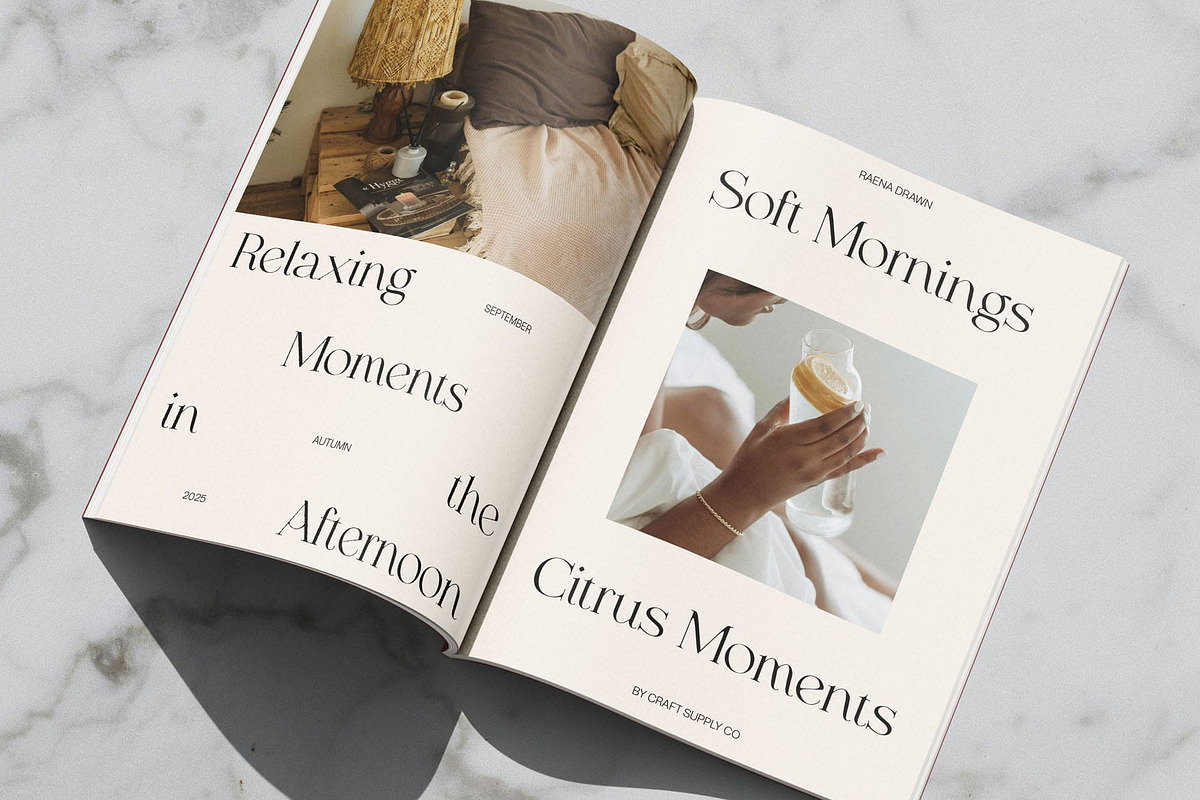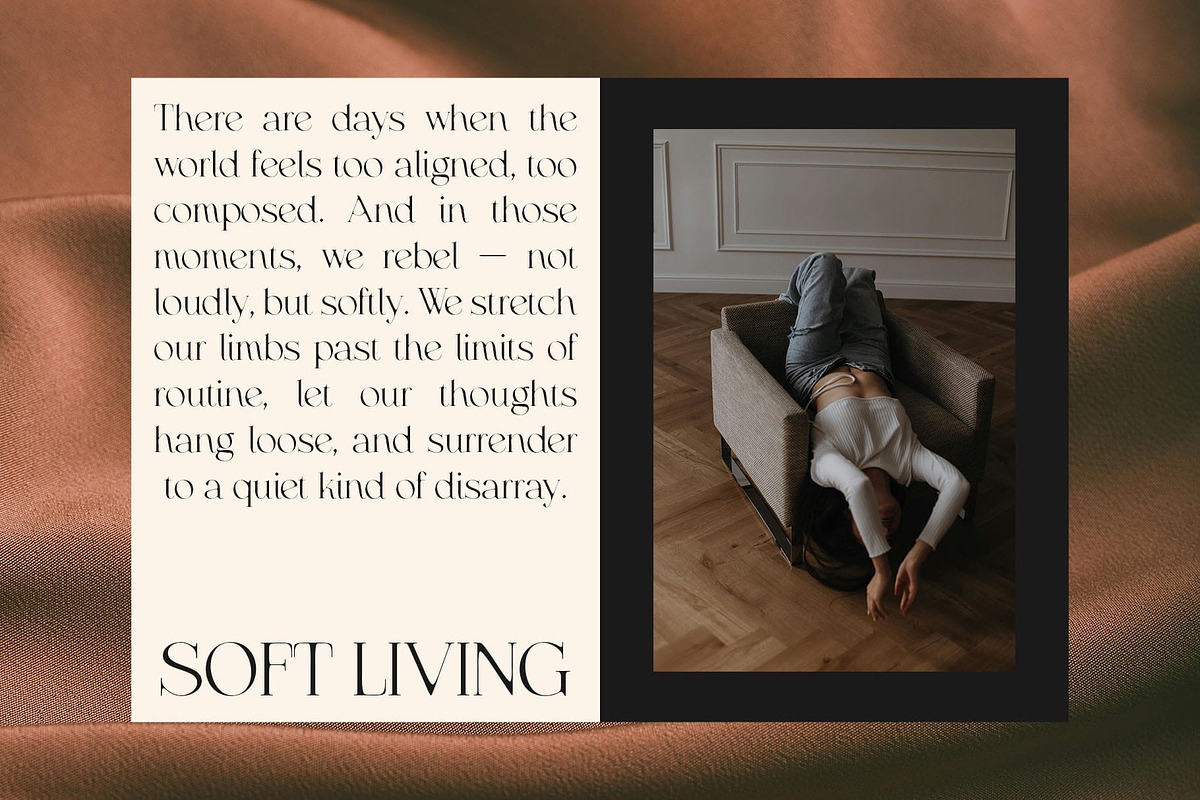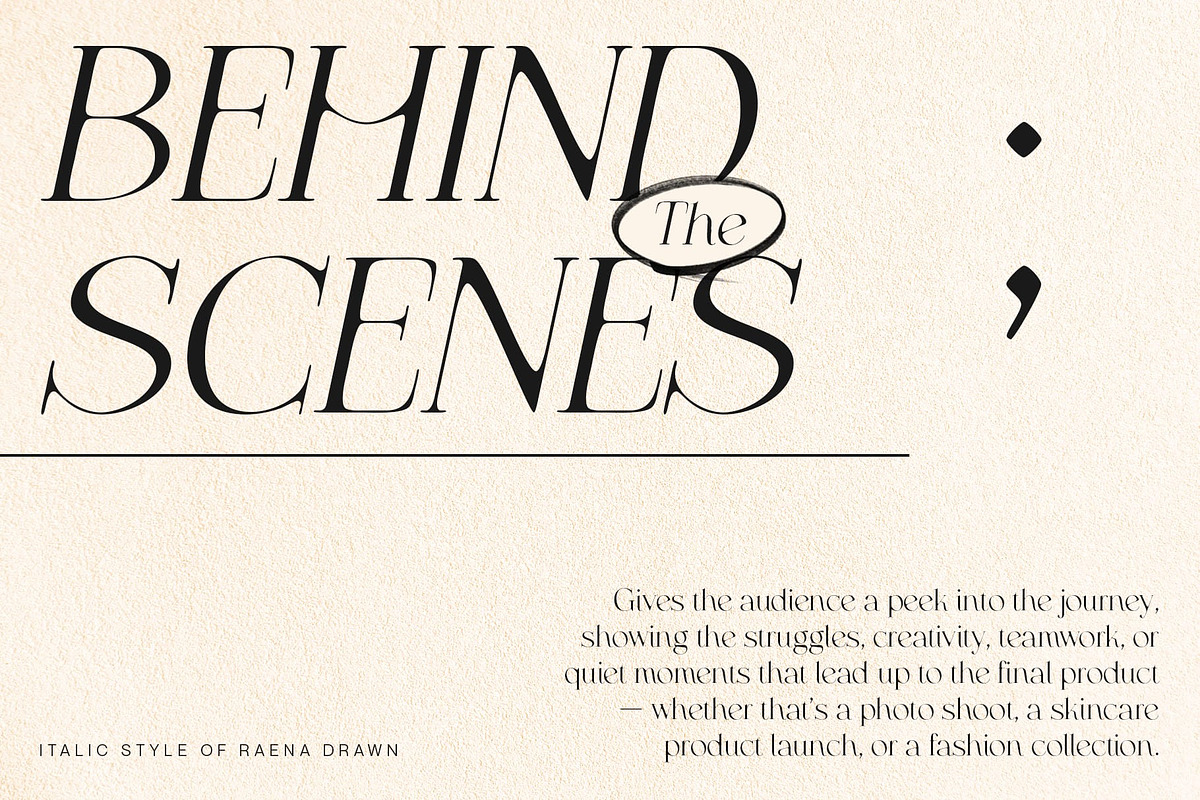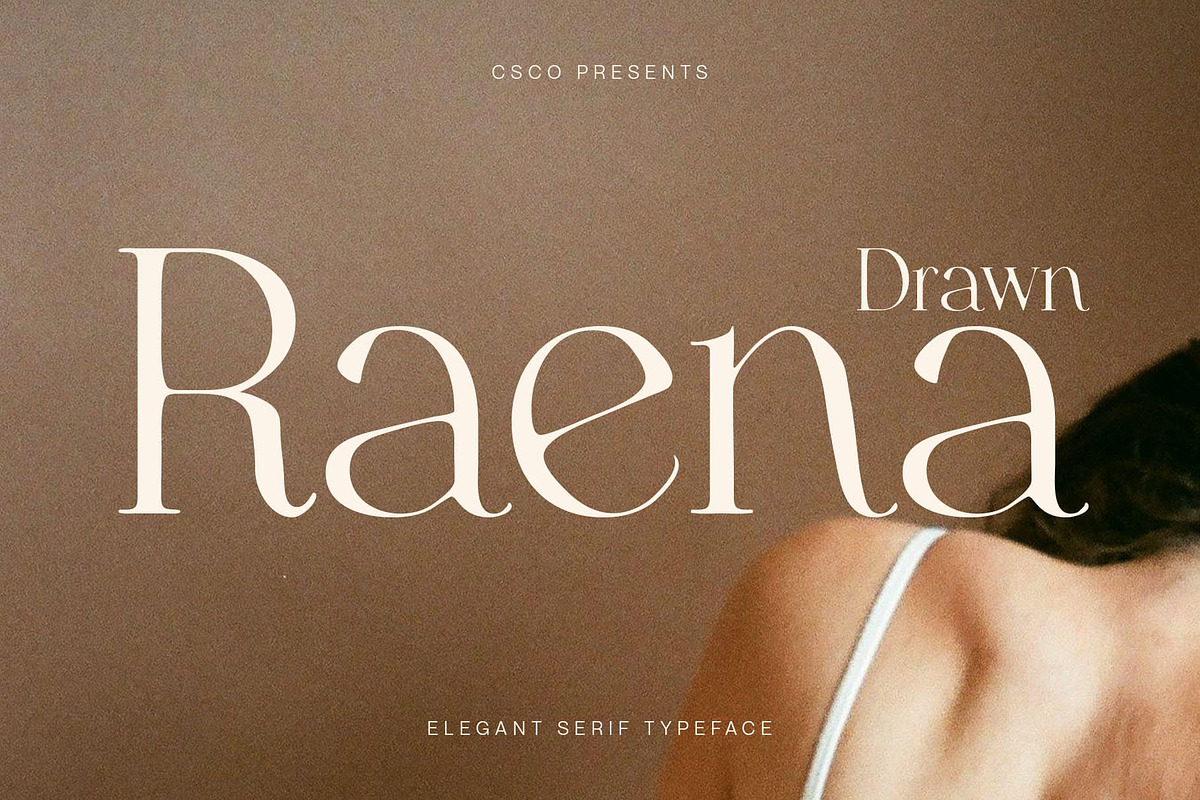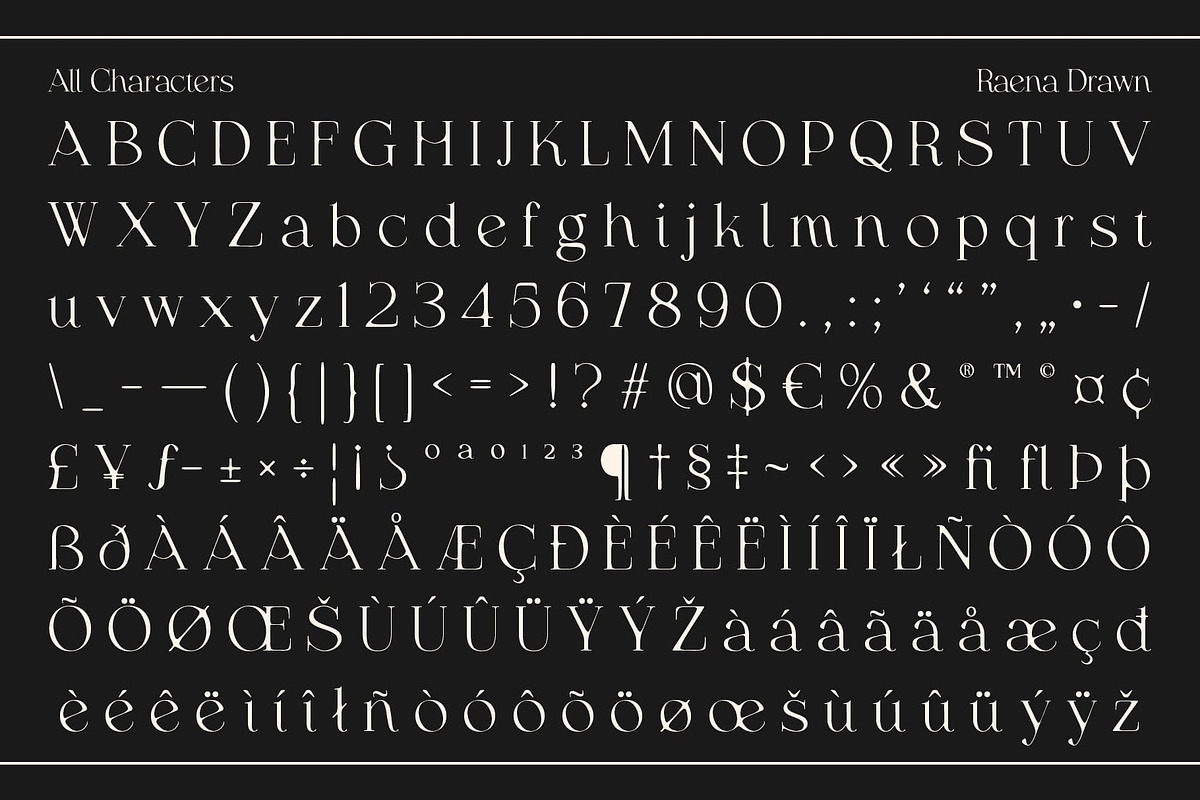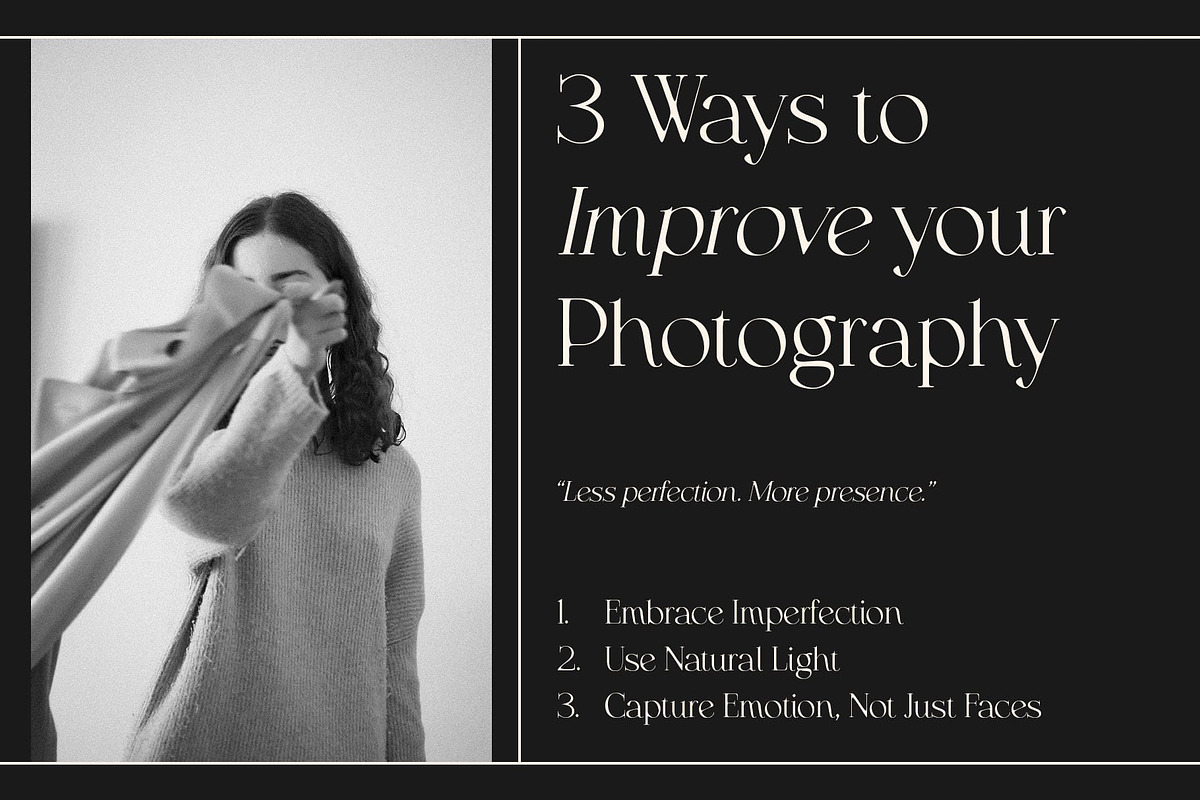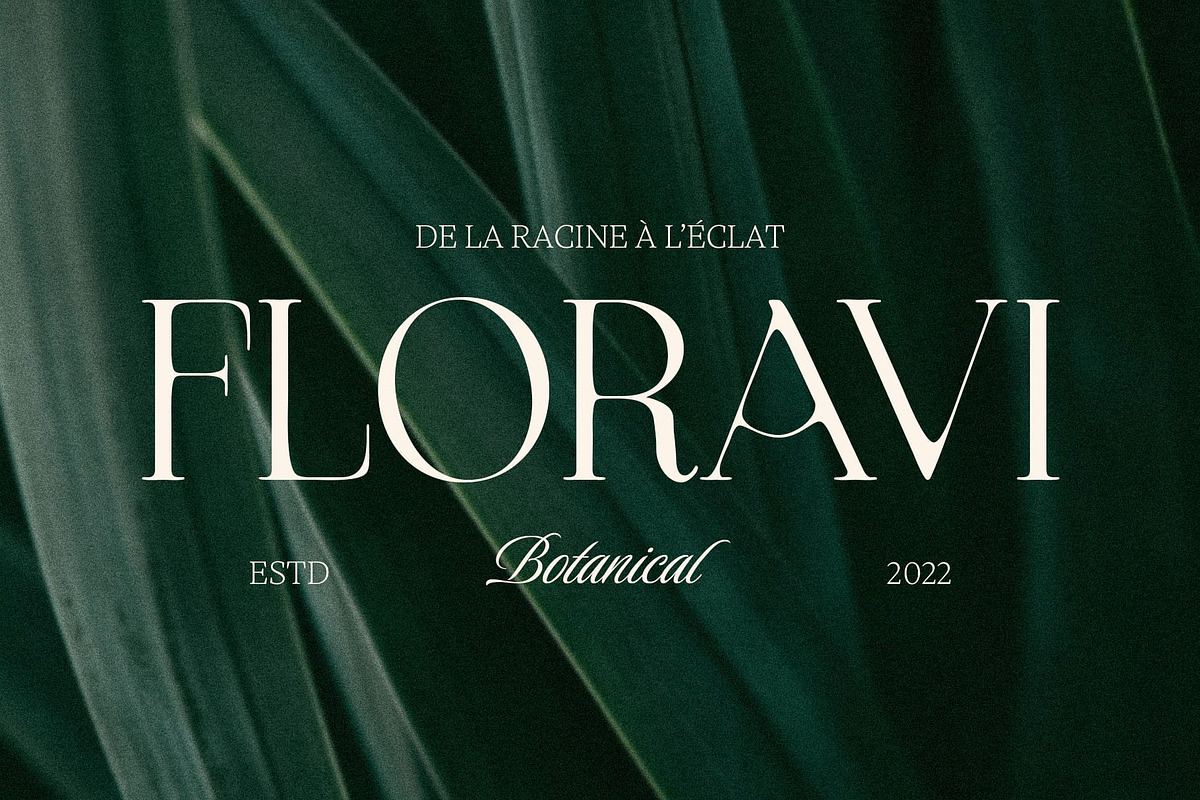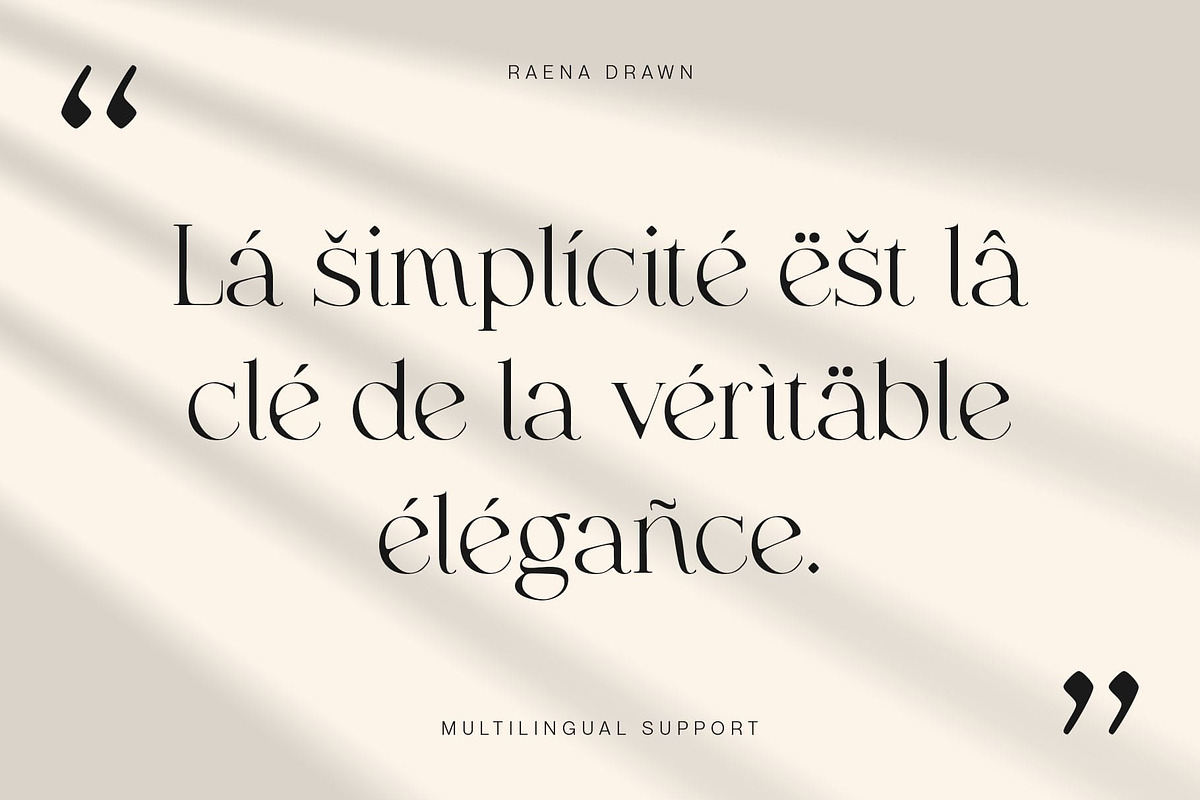
Raena Drawn
Raena Drawn Font – Elegant Modern Serif with a Hand-Drawn Touch
Modern Elegance with Subtle Personality Raena Drawn is a modern serif font that embraces a slim, clean, and elegantly refined structure, drawing inspiration from contemporary editorial aesthetics while incorporating the gentle irregularities of hand-drawn detail. Its slim letterforms and sharp serifs create a sense of precision and sophistication, perfectly suited for designs that prioritize clarity and elegance.
Hand-Drawn Effect for Artistic Warmth Adding to its graceful form, Raena Drawn features a gentle hand-drawn texture that brings a sense of warmth and human touch to the design. What sets Raena Drawn apart is its subtle drawn texture, giving the impression of being crafted by hand—adding softness, warmth, and an inviting organic quality to an otherwise polished design. This handcrafted touch doesn’t overwhelm but enhances the font’s modern clarity with a unique personality and visual depth.
Perfect Balance of Class and Character This font maintains a graceful and modern style while subtly embracing organic imperfection, resulting in a distinctive personality. It’s ideal for projects that seek to combine luxury and creativity—delivering both visual beauty and emotional appeal.
Versatile for Premium and Creative Applications Whether used in editorial layouts, elegant invitations, fashion branding, or upscale packaging, Raena Drawn brings a sense of authenticity and sophistication. Its balance between modern clarity and artistic expression makes it a standout choice for creative professionals.